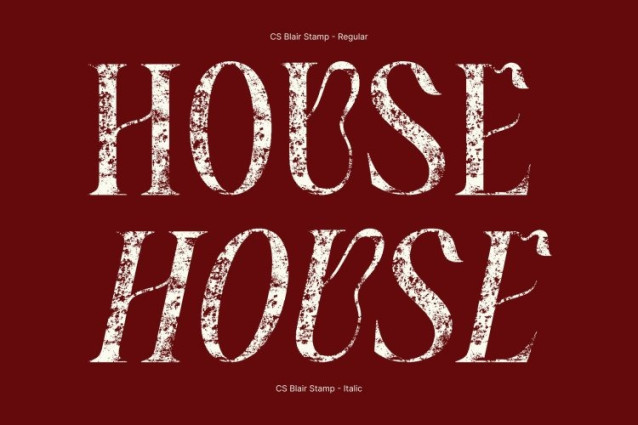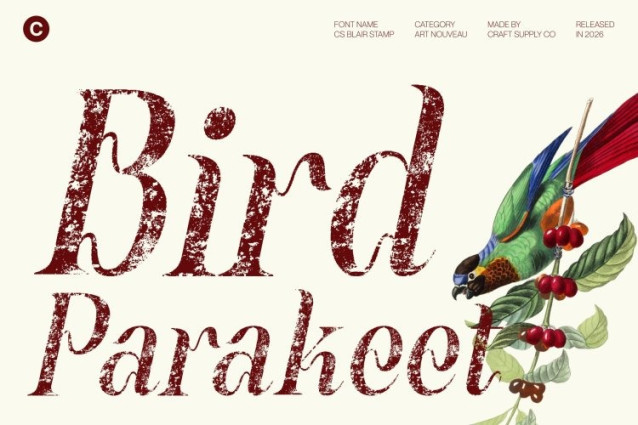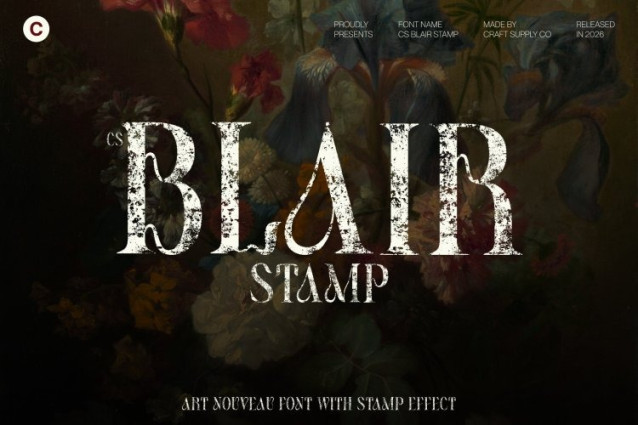
CS Blair Stamp Font
CS Blair Stamp Font This is a refined serif font inspired by the timeless beauty of Art Nouveau, enhanced with a distinctive stamp texture. Its smooth curves, flowing lines, and organic details express elegance and artistic grace, while the stamped finish introduces a subtle vintage depth that evokes classic print craftsmanship.
Timeless Beauty with Textured Detail
The intricate forms and graceful transitions of this font create a harmonious visual rhythm. The added stamp effect brings gentle imperfections and tactile warmth, reinforcing its handcrafted aesthetic while preserving clarity and sophistication.
Perfect for Elegant and Artistic Designs
Ideal for luxury branding, wedding invitations, packaging, posters, and refined editorial layouts, this font enhances every composition with decorative charm and character. Its Art Nouveau influence combined with vintage texture makes it especially suitable for high-end and heritage-inspired projects.
Versatile with Luxurious Presence
Whether used for logos, headlines, or premium marketing materials, this font delivers a distinctive and elegant voice. Its fusion of flowing Art Nouveau structure and subtle stamp texture ensures designs feel refined, artistic, and timelessly captivating.